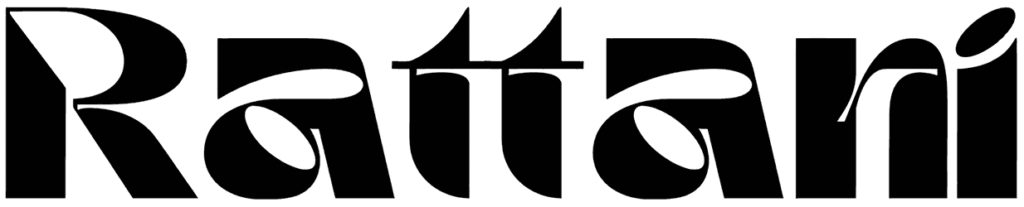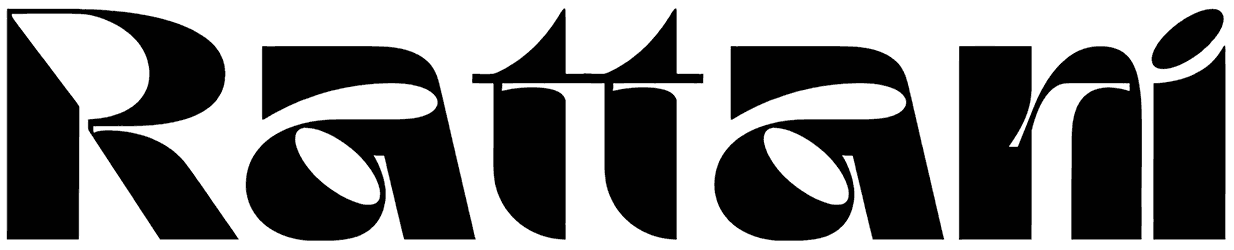
Rattani Font
Rattani is one of the thousands of attractive and functional fonts in our archive that add a sense of vintage, momentum, professionalism, and credibility to artwork, including posters, logos, packaging, stationery, and gift cards.
Since one part of each character of this bold fashion font is thick and the other part is narrow, this sense of contradiction boosts the visibility of your content, so it is better not to worry too much about the lack of numbers and punctuation.